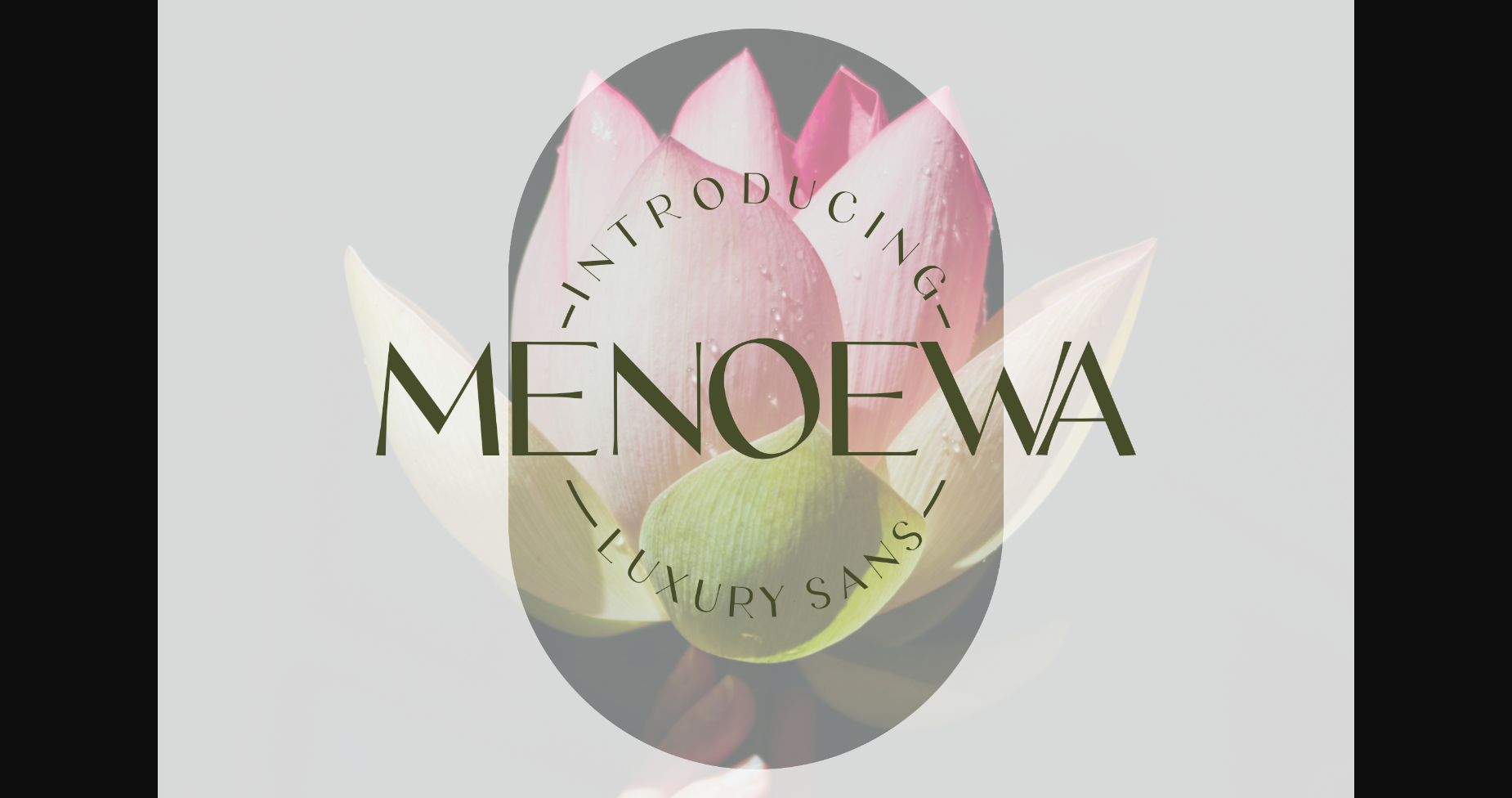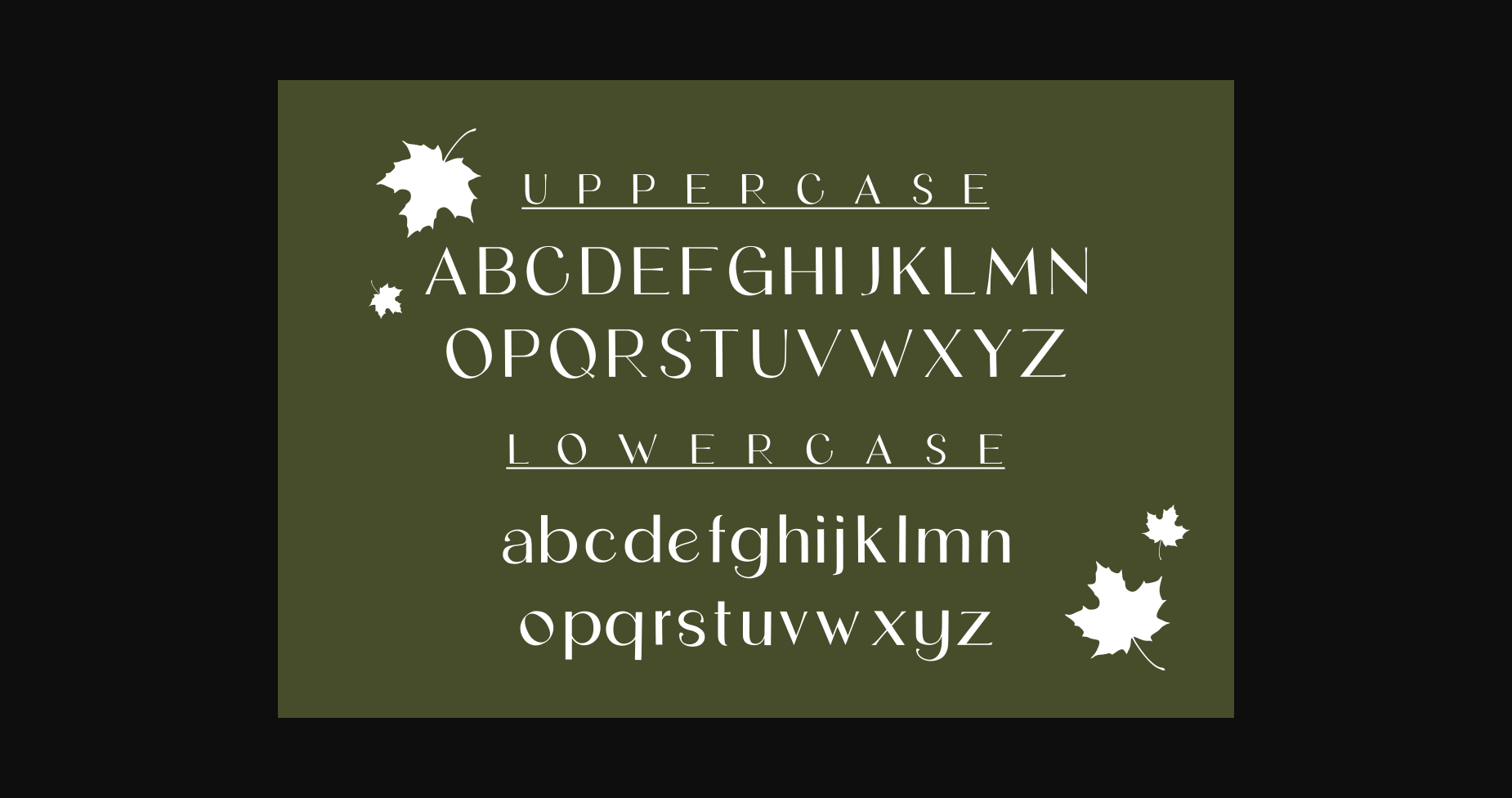
About Menoewa Font
Menoewa is a modern sans serif font with clean, geometric lines that create a sense of simplicity and sophistication. Its balanced letterforms and consistent stroke weight make it ideal for branding, advertising, and editorial design that demands a contemporary and minimalist aesthetic.